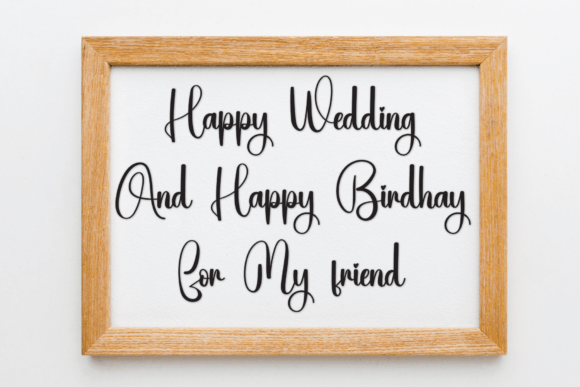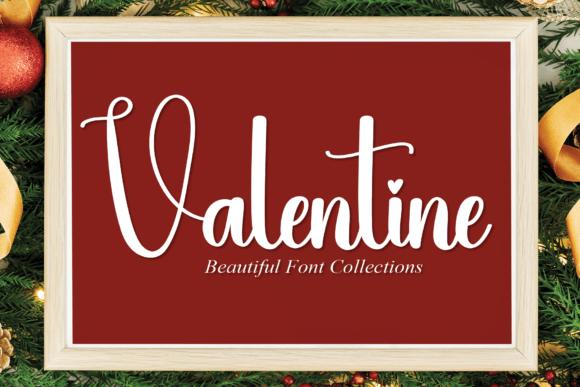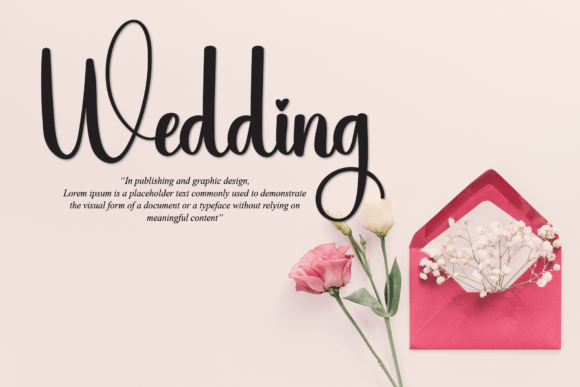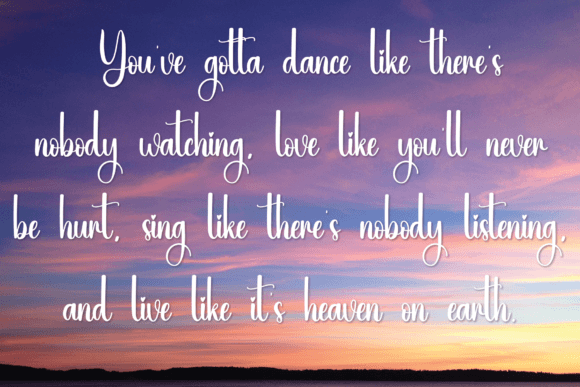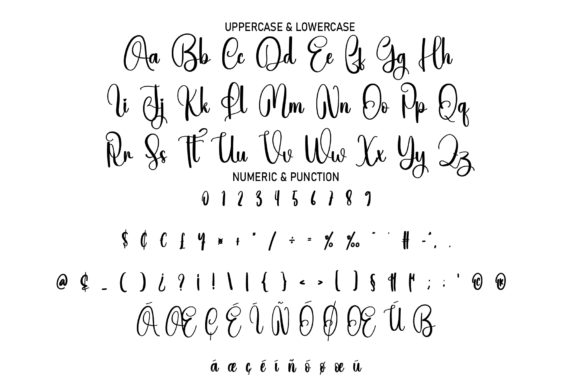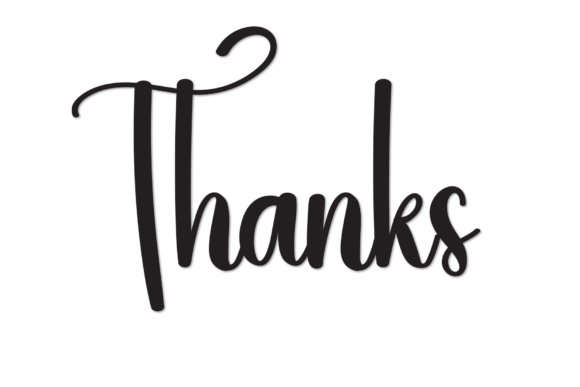
The Aloved Font: A Stylish and Elegant Handwritten Script
I’ll never forget the moment I stumbled upon the perfect font for a wedding invitation project. I had been searching for hours, trying out different fonts, but none seemed to capture the elegance and personal touch I was looking for. That’s when I discovered Aloved, a beautiful handwritten script font that instantly became my go-to. In this article, I’ll share my experience with Aloved, its features, and how to make the most of it in your designs.
An Honest Review of Aloved
As a designer, I’m always on the lookout for fonts that can elevate my projects. Here’s what I love about Aloved:
- ✨ Elegant and stylish handwritten script
- ✅ Perfect for personalized designs, such as wedding invitations, thank you cards, and greeting cards
- ✅ Works beautifully with logos, branding, and packaging designs
While Aloved is an excellent font, it’s not without its quirks. Here are a few things to keep in mind:
- 🤔 Some letters may require manual kerning for optimal spacing
- ⚠️ Limited availability of stylistic alternates, but still offers a range of OpenType features
The Story Behind Aloved
Aloved was designed with the intention of creating a beautiful, elegant script font that captures the essence of handwritten writing. The designer aimed to create a font that would be perfect for personalized designs, such as wedding invitations and thank you cards. With its stylish and elegant appearance, Aloved has become a popular choice among designers and crafters.
| What is Aloved best used for? | Aloved is perfect for personalized designs, such as wedding invitations, thank you cards, greeting cards, logos, and branding. |
| Does Aloved have OpenType features? | Yes, Aloved offers a range of OpenType features, including ligatures, stylistic alternates, and glyphs. |